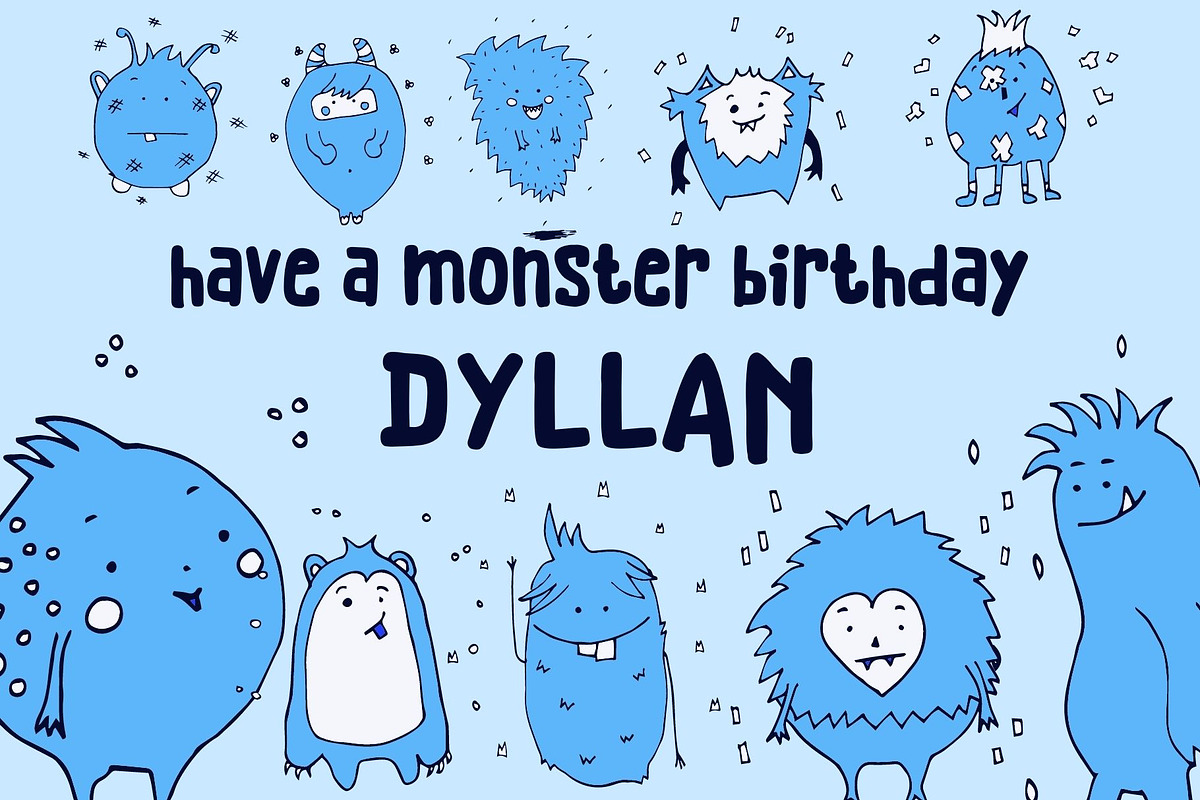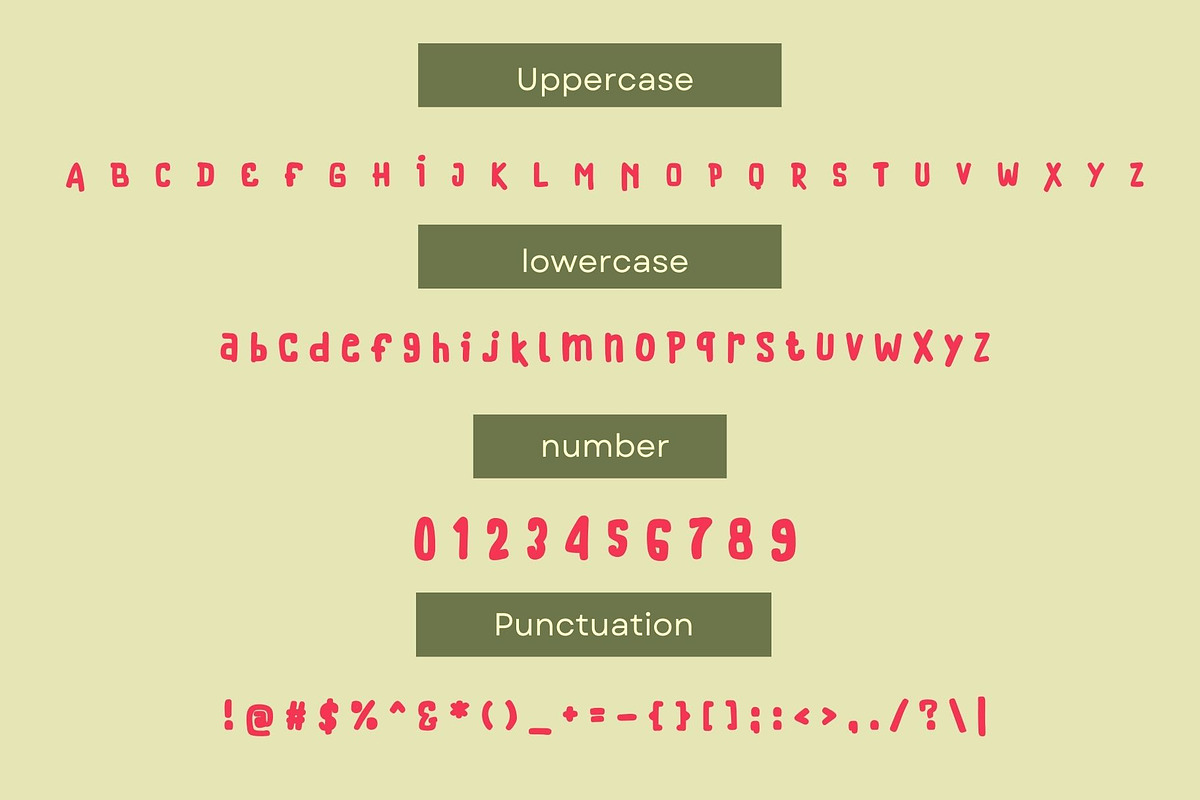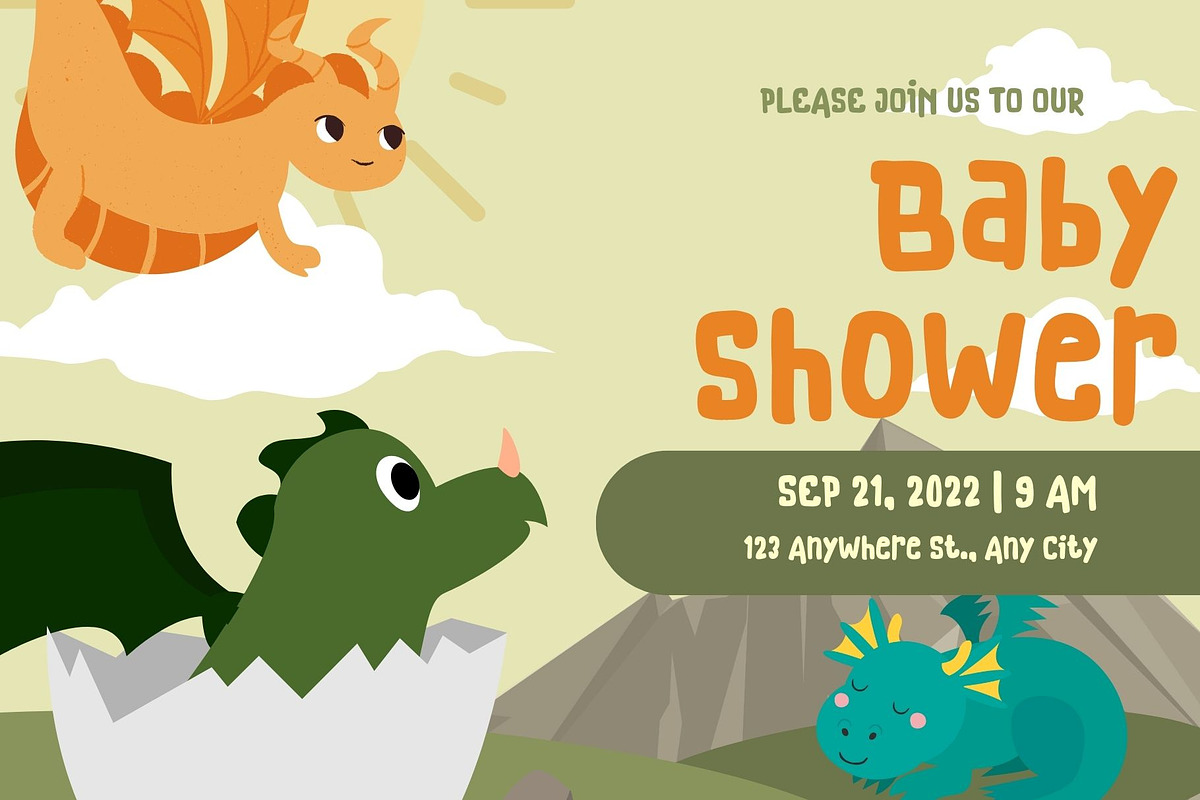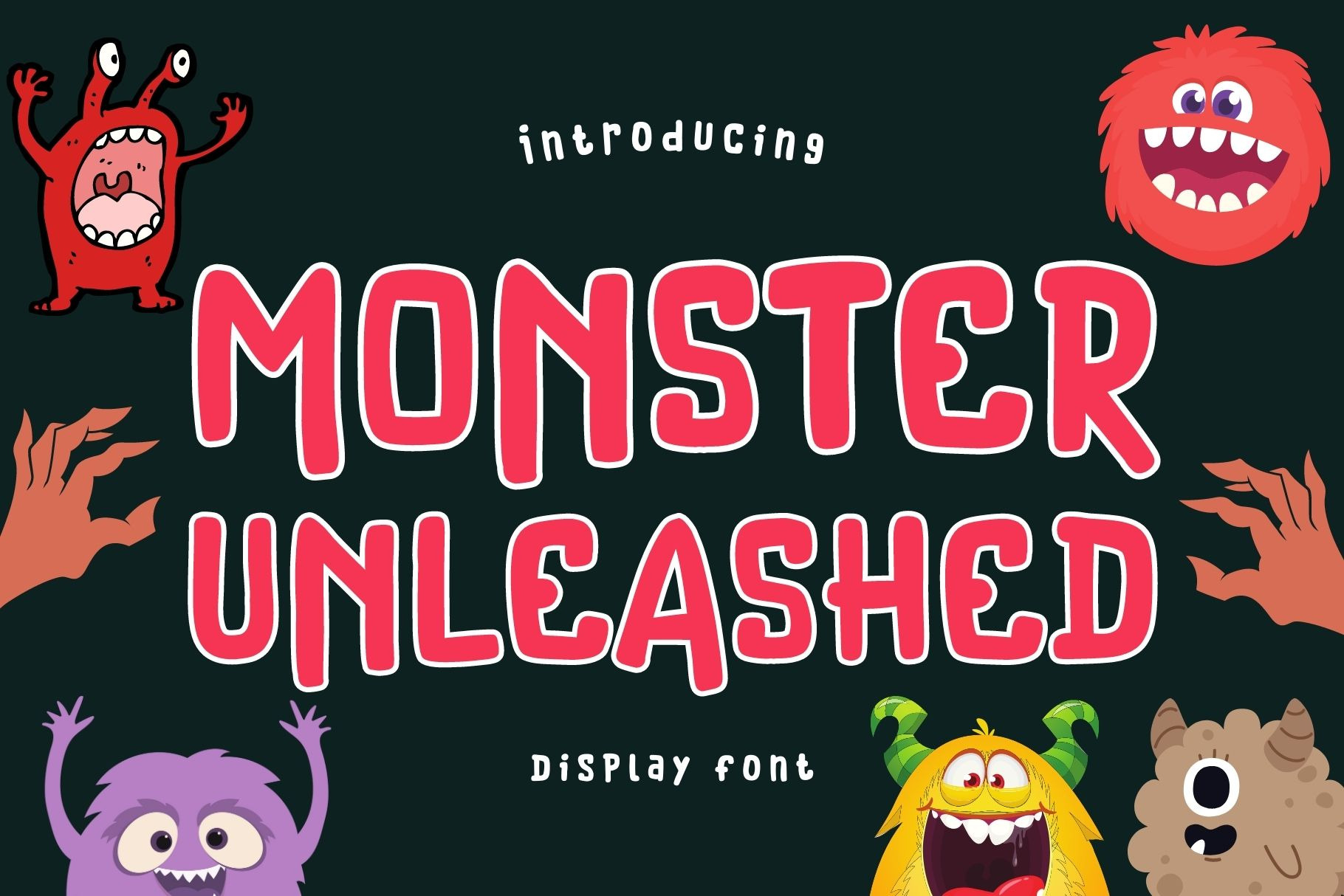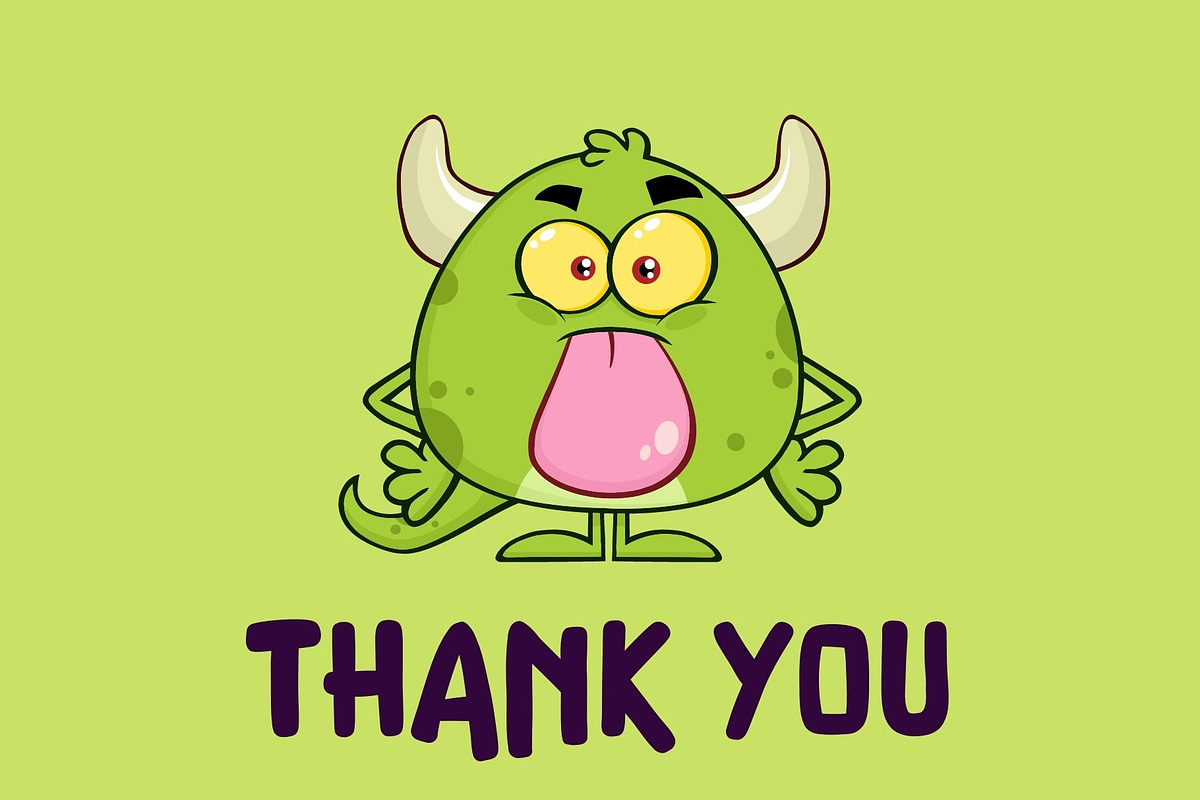
Monster Unleashed - Halloween font
Monster Unleashed is a cool Halloween display font. The additional elements of blood dripping and bones-like letters make an ambiance of horror Invitations, postcards, posters, and headings for a Halloween event; this font can be used in every setting.